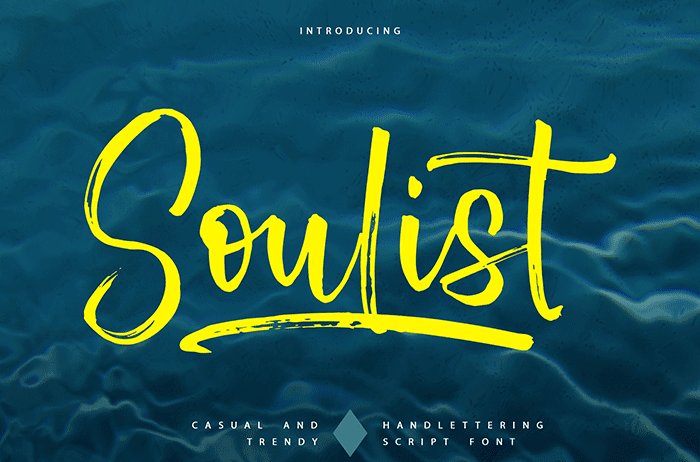
Soulist Script Font
Soulist is a playful script font that will look beautiful in your next projects such as invitations, greeting cards, branding materials, quotes, posters, and more. Your designs will stand out with this refined and balanced font. Thanks to Vunira Studio for sharing this font! Take a look at this portfolio for more of his stunning fonts.